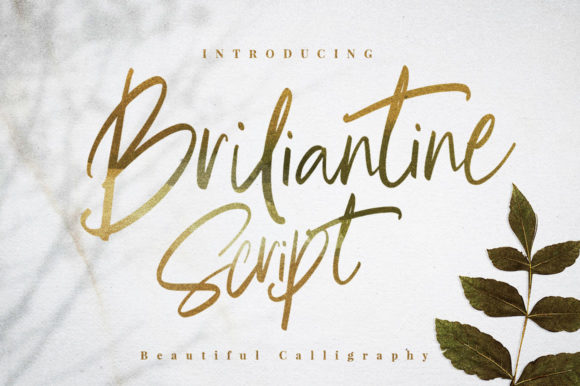
The Briliantine Script Font: A Fashionable Calligraphy Companion
I’ll never forget the time I was working on a wedding design project, and my client asked for a font that would make their special day feel like a fairytale. I scoured the internet, trying out font after font, but nothing seemed quite right. That was until I stumbled upon the Briliantine Script Font. With its beautiful swashes and elegant typography, it was love at first sight! In this article, I’ll share my experience with this gorgeous font, its features, and how to make the most of it in your designs.
- ✨ Beautiful swashes that add a touch of elegance to any design
- ✅ Comes in both regular and italic styles for added versatility
- 💫 Offers a beautiful typographic harmony, perfect for a variety of design projects
- 🎨 Highly suitable for logos & branding, wedding designs, social media posts, advertisements & product designs, and more!
While I adore the Briliantine Script Font, there are a few things to keep in mind:
- 🤔 The font’s elegance can be overwhelming if not used thoughtfully. Be mindful of pairing it with other fonts.
- ⚠️ Some swashes might not work well in smaller font sizes. Experiment to find the sweet spot.
While I couldn’t find any information on the exact designer behind Briliantine, I like to imagine that it was created by a team of designers who are passionate about calligraphy and typography. They likely drew inspiration from classic script fonts, combined with a modern twist to create this stunning typeface. Their goal was to craft a font that’s both elegant and versatile, suitable for a wide range of design projects.
Q: What type of designs is Briliantine best suited for?
A: Briliantine is perfect for logos & branding, wedding designs, social media posts, advertisements & product designs, and more!